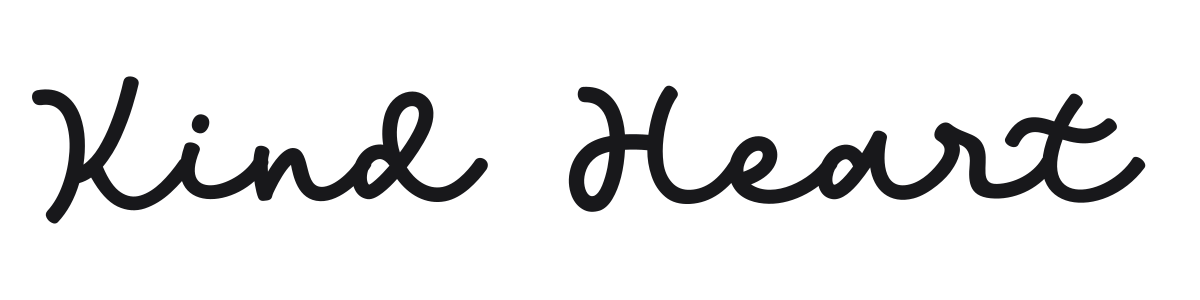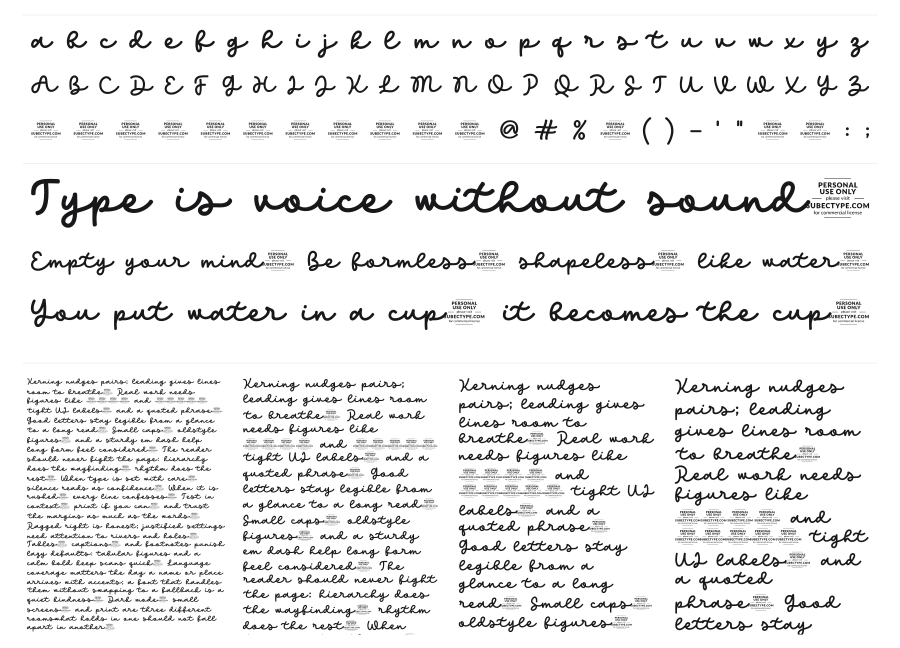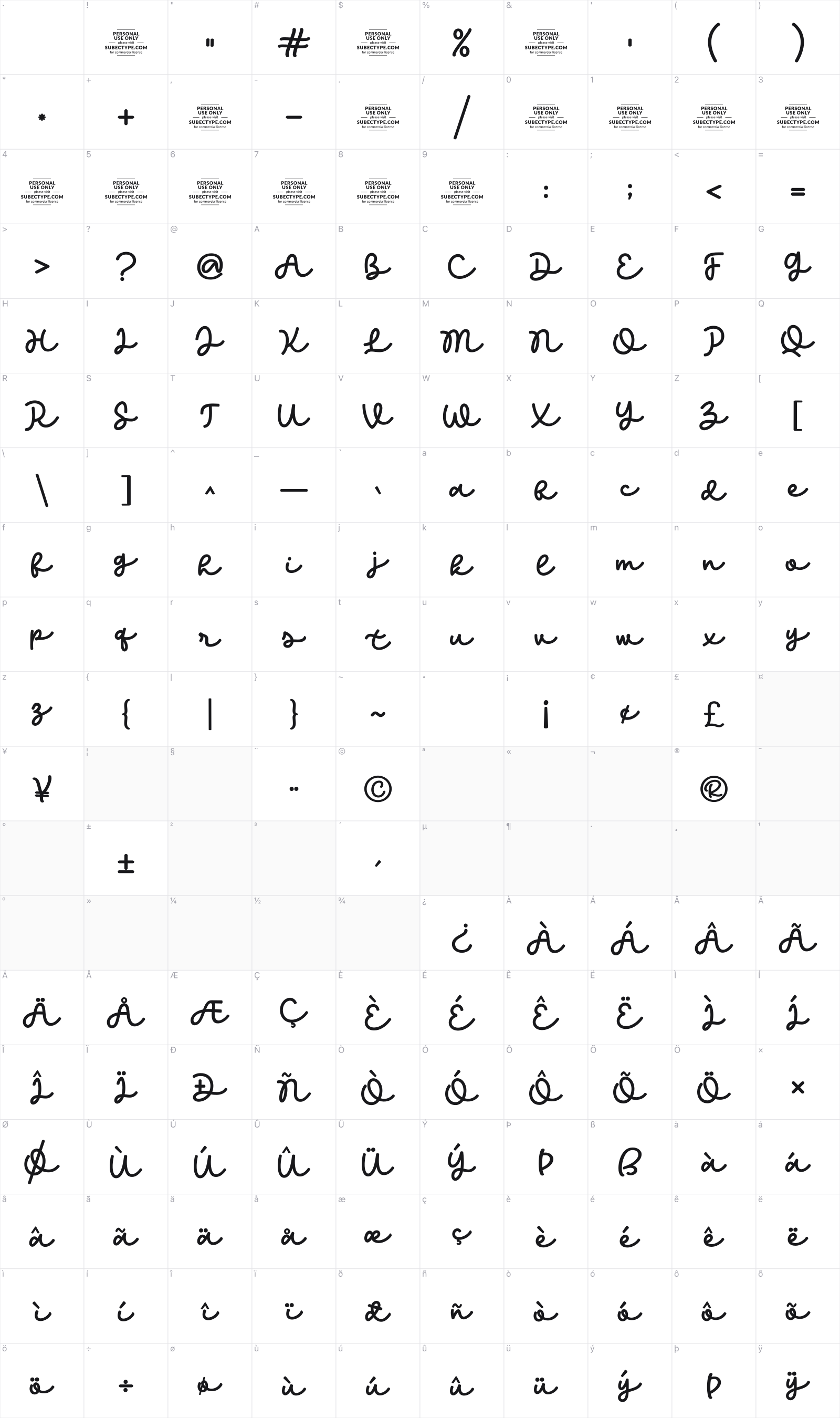
Kind Heart
Kind Heart is a connected casual script from Subectype Studio with smooth, looping strokes and a relaxed hand-drawn rhythm. The monoweight construction keeps it legible at headline sizes while the rounded curves give it an easygoing warmth. It reads like a thoughtful note written with a good pen.